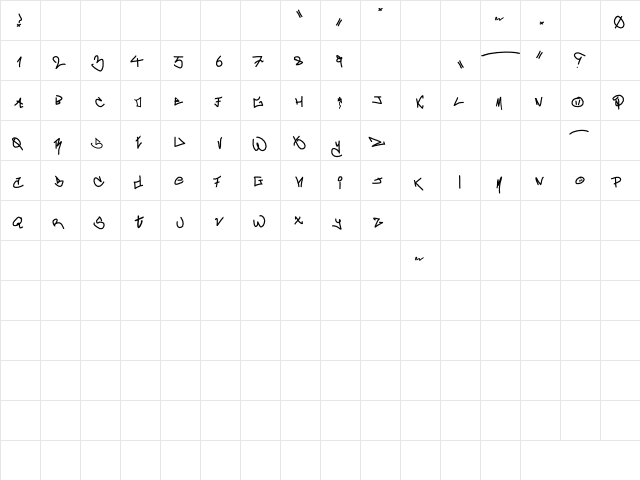
crAzy-WRiterZ Font Preview
crAzy-WRiterZ Font Details
| Style | crAzy-WRiterZ |
Design Context for crAzy-WRiterZ Typeface
crAzy-WRiterZ is a composed and adaptable typeface that performs quietly and consistently across a wide range of design contexts.